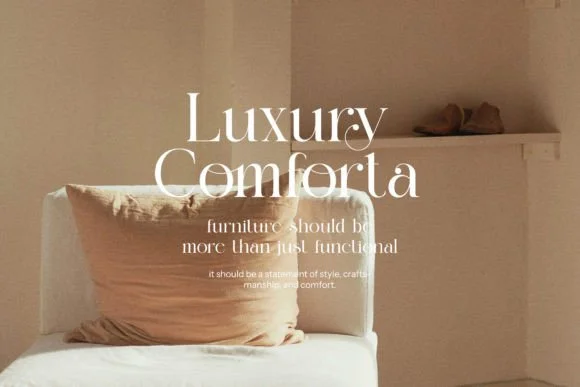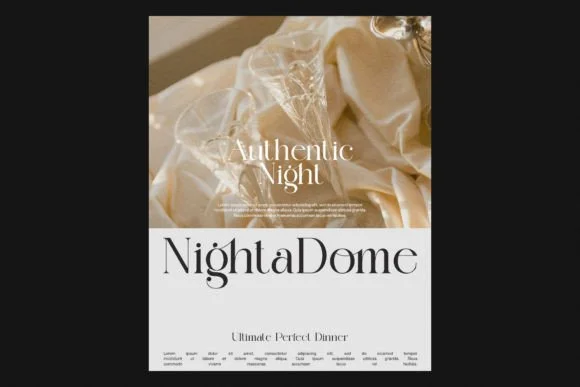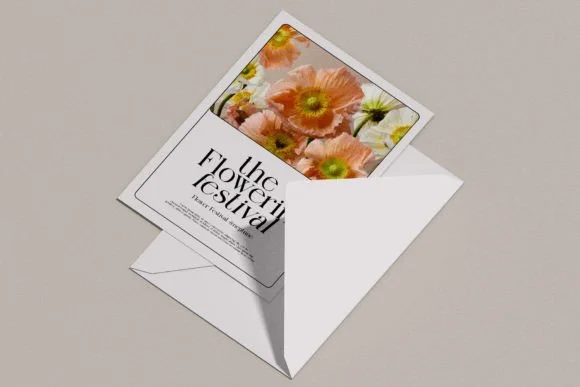
Migllon Font is a rich text style that consolidates smooth, streaming letters with snappy bends. It’s a serif typeface, meaning it has little lines at the closures of its strokes.
The ligatures interface certain letters for a more imaginative look. This makes it ideal for adding a tasteful, modern touch to logos, solicitations, or headings.